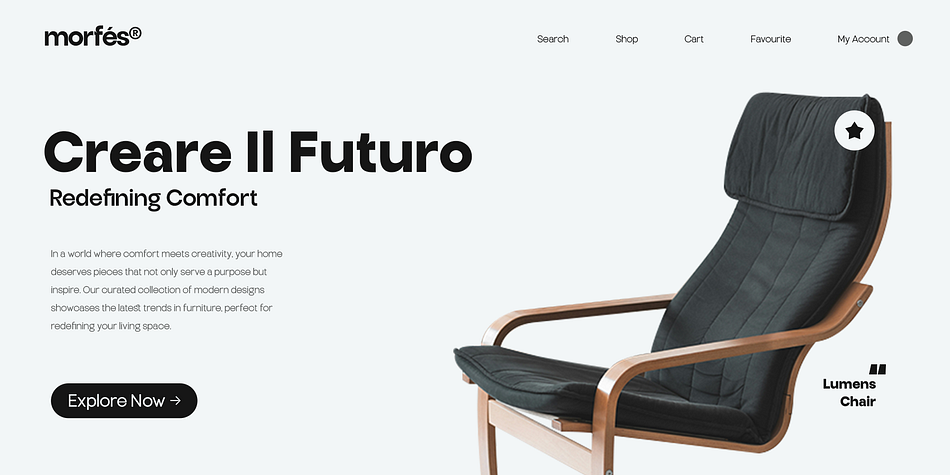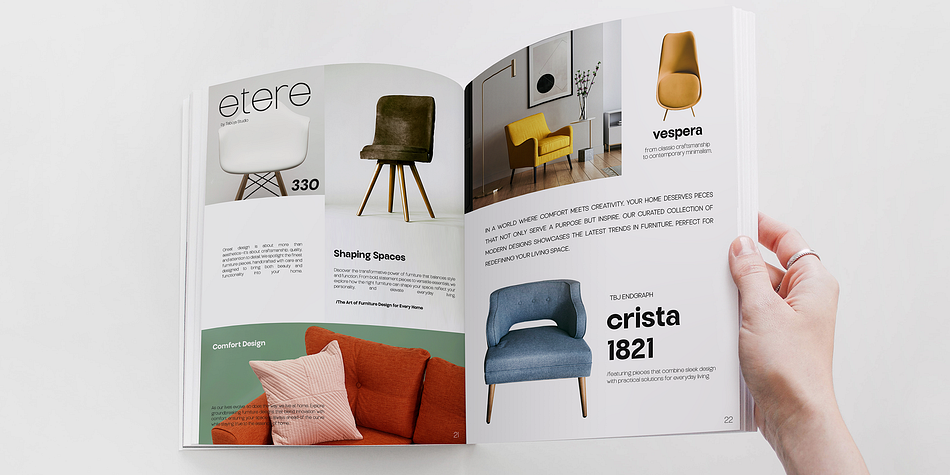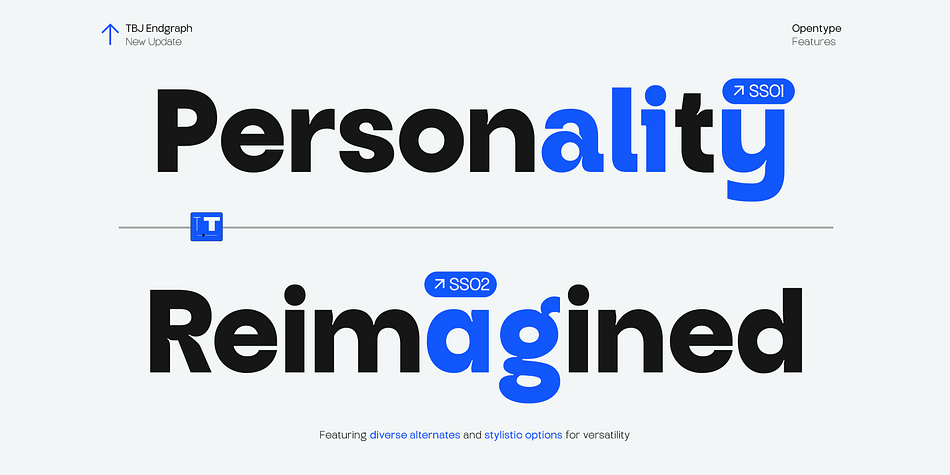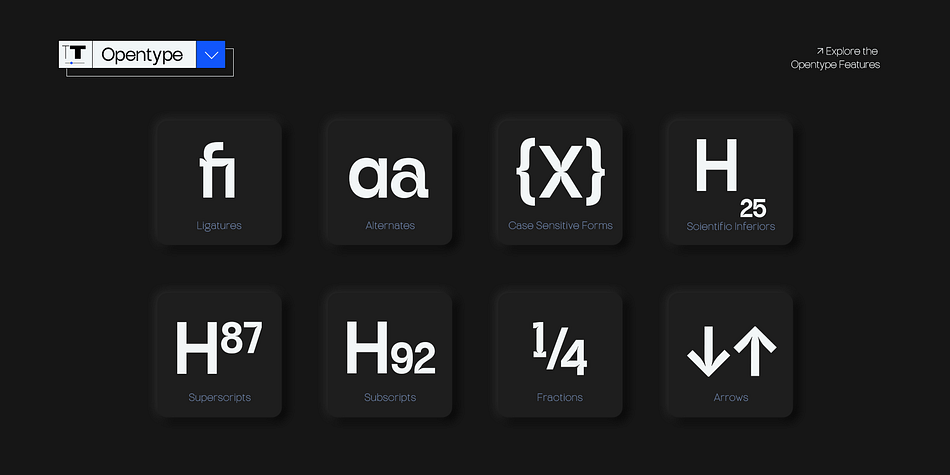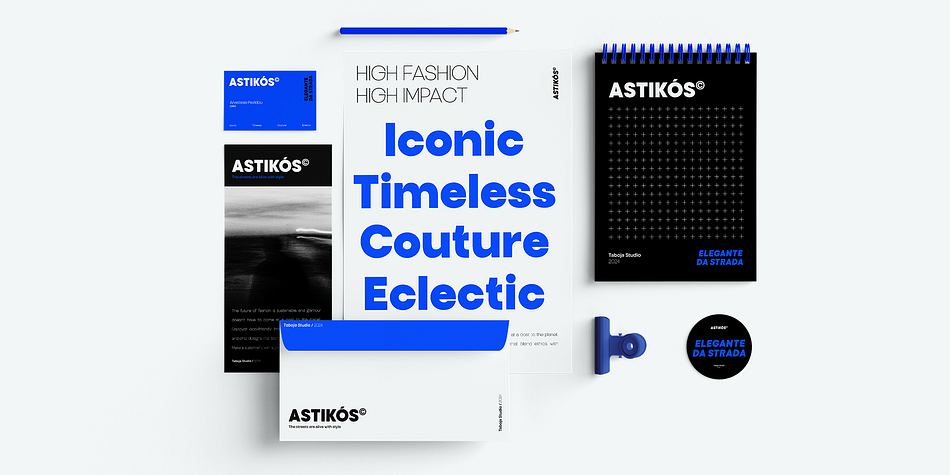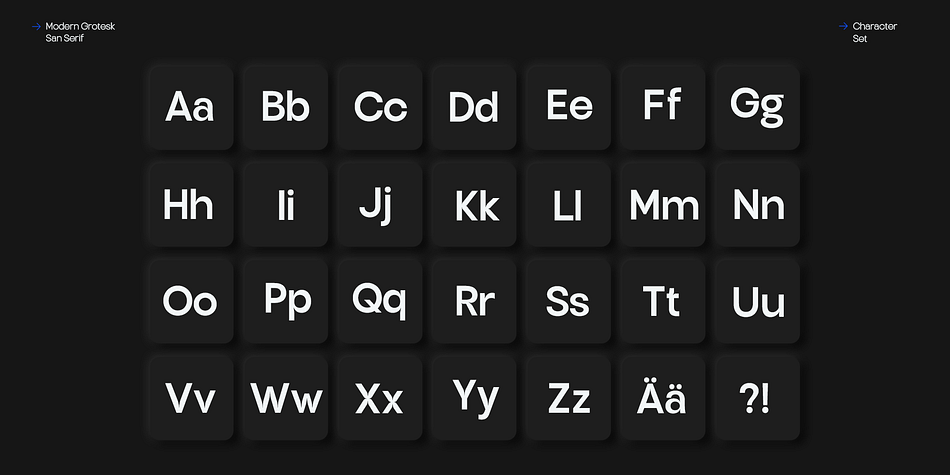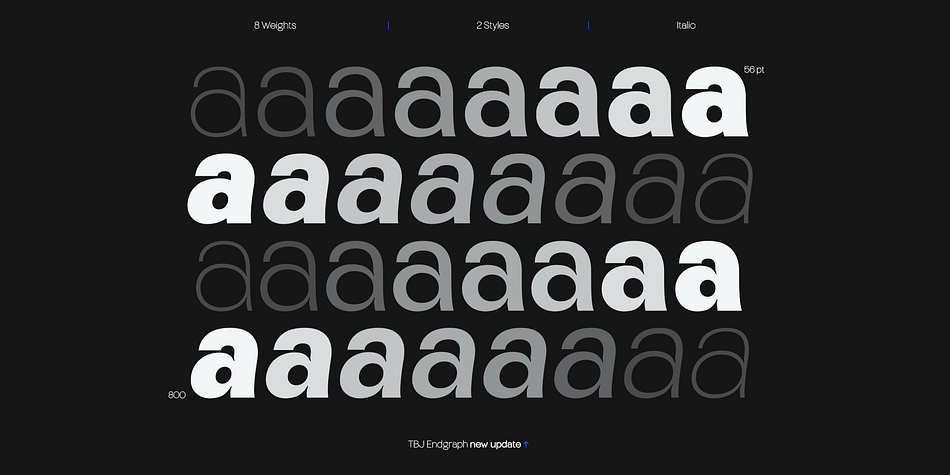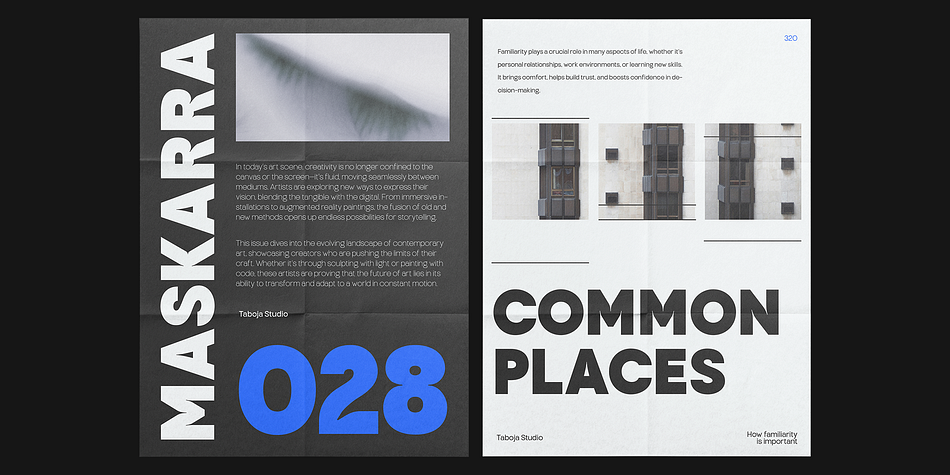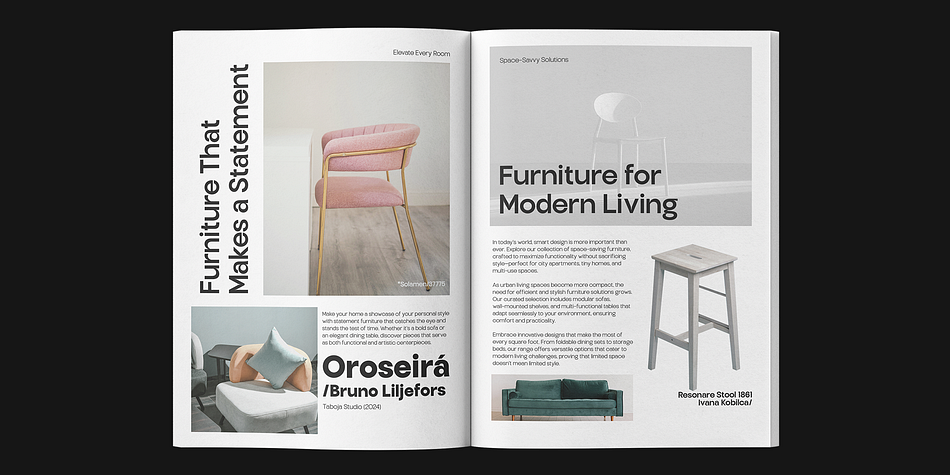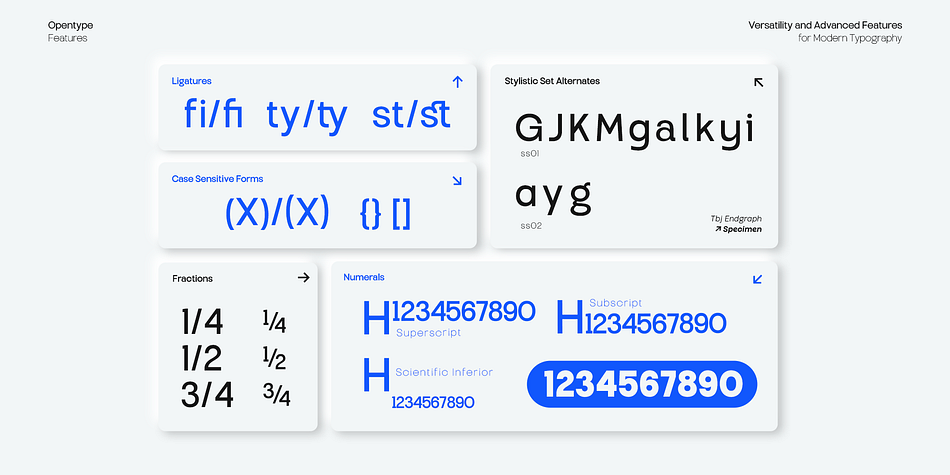
TBJ Endgraph
TBJ Endgraph is a sans serif font family. This typeface has thirty-four styles and was published by Taboja Studio.
Introducing TBJ Endgraph Essential & Trapline, a sleek and modern sans serif font family that perfectly blends geometric precision with grotesque warmth. With 8 versatile weights, from Thin to Extra Bold, and2 Styles Essential & Trapline. TBJ Endgraph is designed to fit seamlessly into any project, whether it’s a logo, website, or print material. Its clean lines and balanced shapes make it a reliable choice for designers seeking both style and readability.
Each weight of TBJ Endgraph adapts effortlessly to various design needs, ensuring a consistent and professional look across all your creative works. From bold headlines to detailed body text, this font family provides the flexibility and elegance you need. Give your projects a contemporary edge with TBJ Endgraph, a font family that’s as flexible as it is attractive.
TBJ Endgraph Includes:
8 Weights
New 2 Styles Essential & Trapline
Alternates And Ligatures
Numerals And Punctuation
Accented characters
Multilingual Support